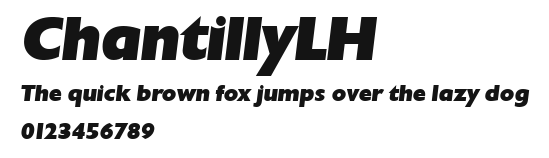
ChantillyLH Preview
• Font Name: ChantillyLH
• Font Style: HeavyItalic
• Font ID: MicroVision ChantillyLH HeavyItalic
• Full Font Name: ChantillyLH HeavyItalic
• PostScript Name: ChantillyLHHeavyItalic
About ChantillyLH.ttf
ChantillyLH.ttf is a modern, elegant sans-serif font designed for ultimate readability and visual harmony. Perfect for branding, headlines, web design, and print materials.